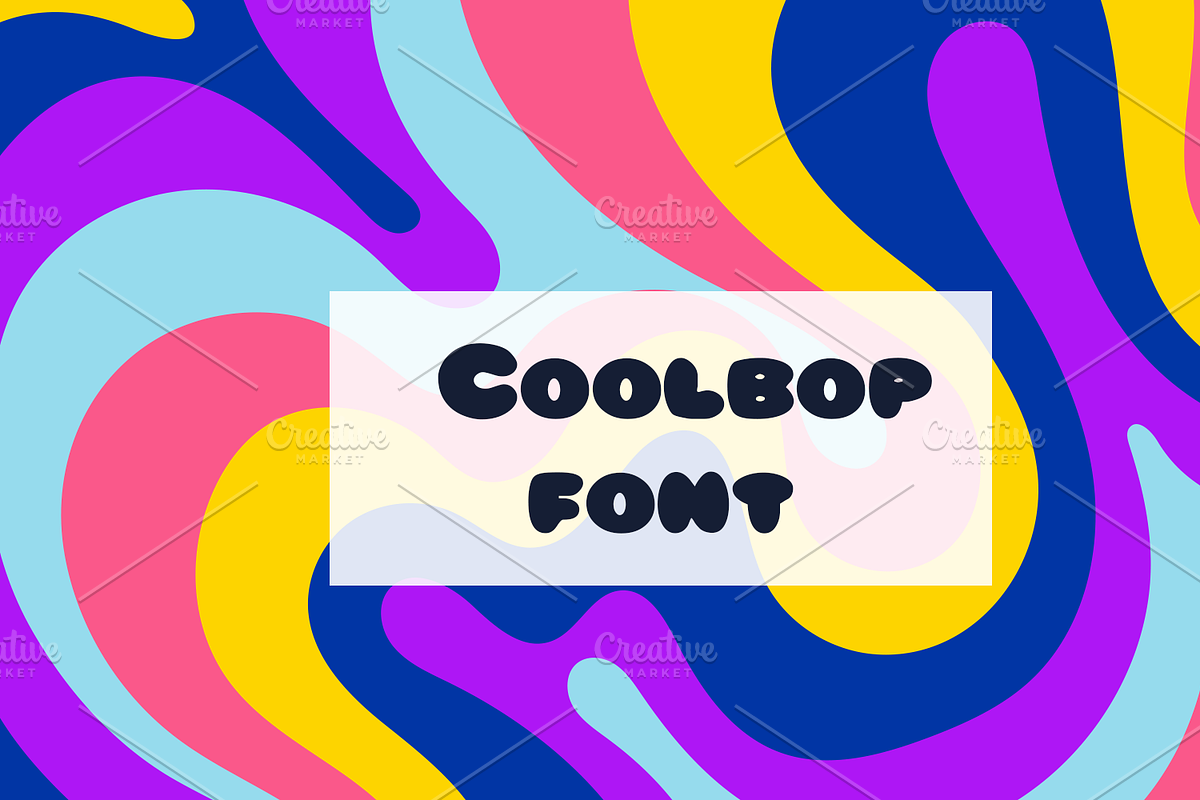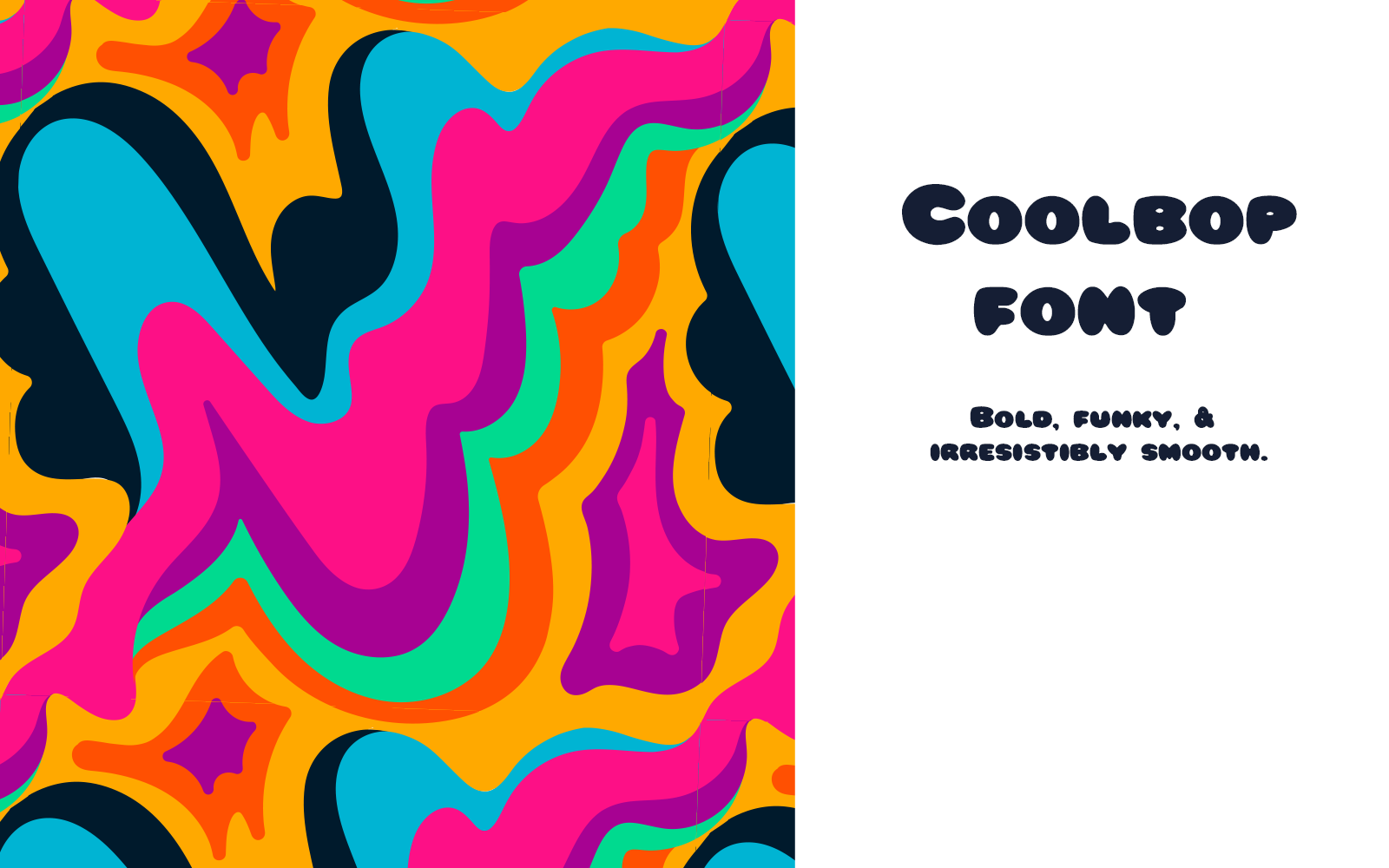
Bring back the golden rhythm with Coolbop—a font that moves like music.
With curvy lines and vintage energy, it’s made for stages, stories, and standout designs.
Ideal for jazz posters, lounge menus, and retro rebrands.
Bold, funky, and irresistibly smooth.
Coolbop: Let your type play its tune.